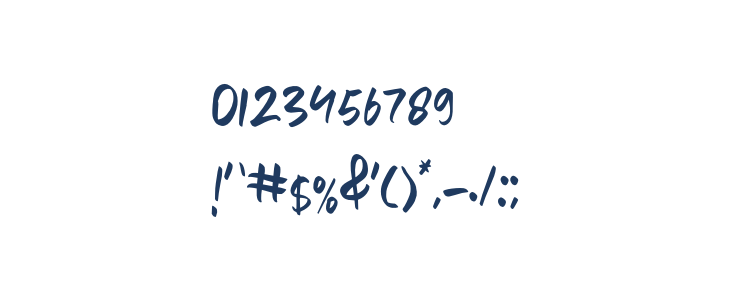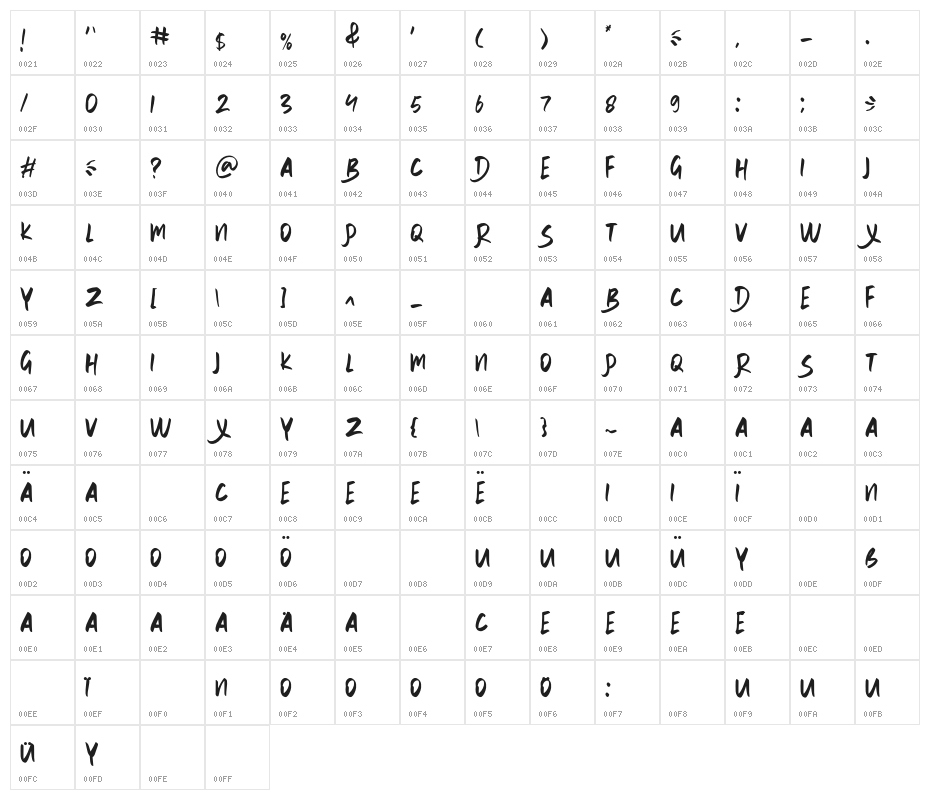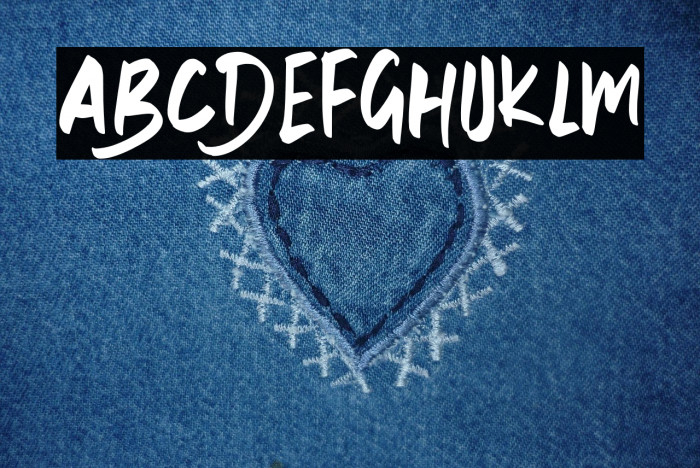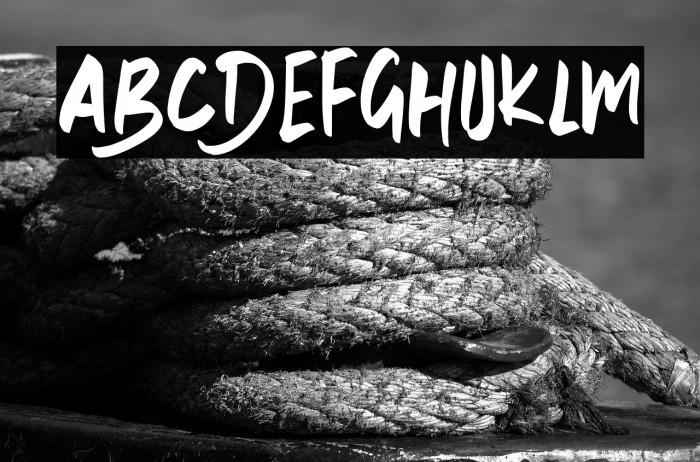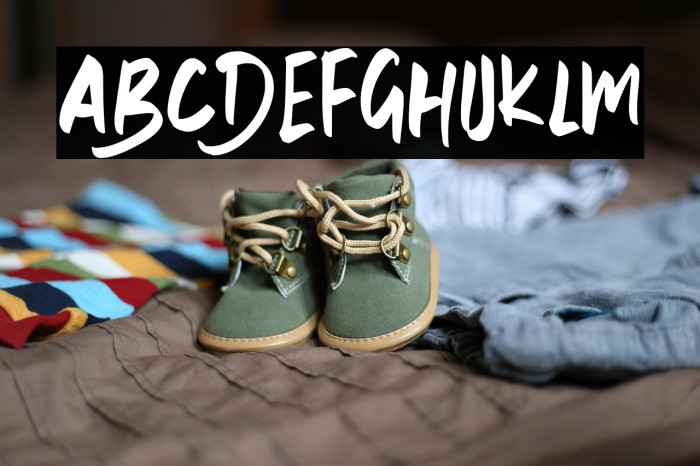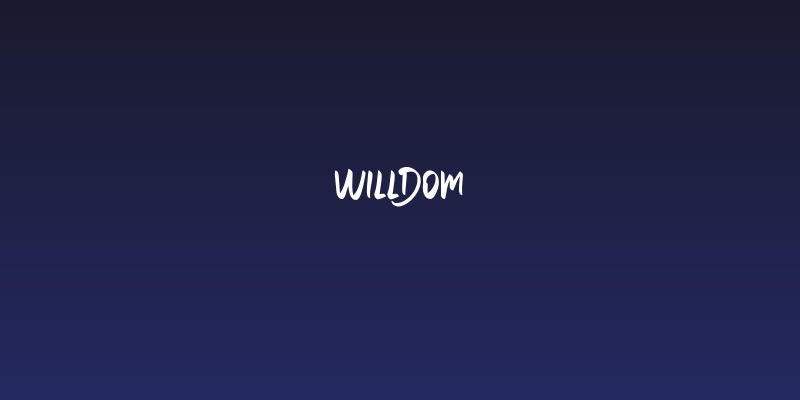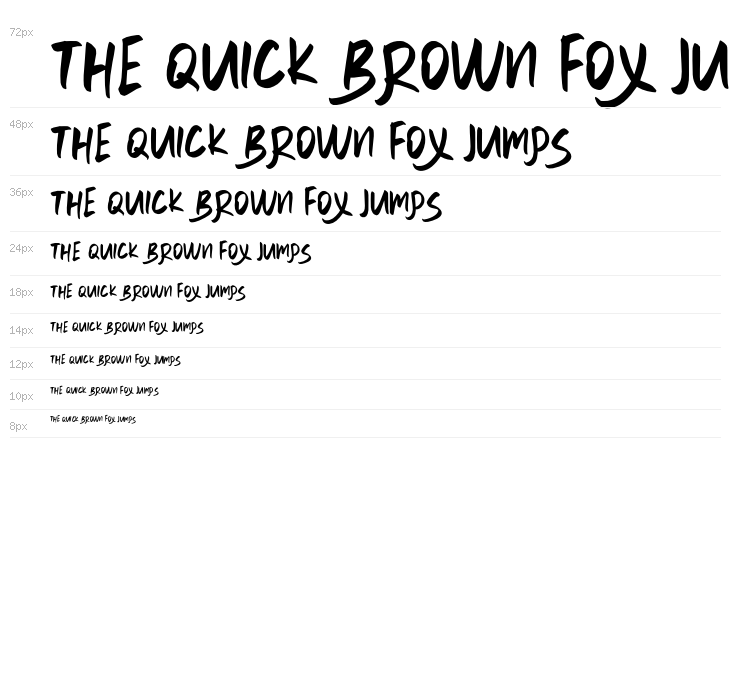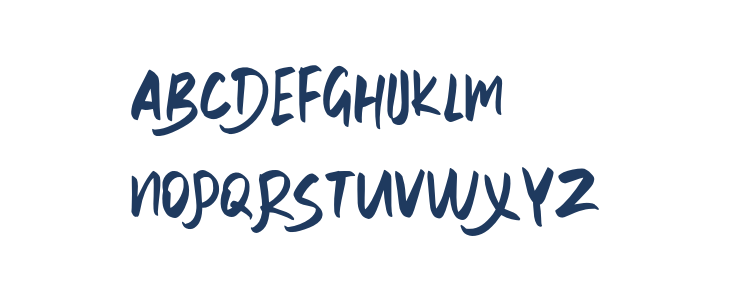
WILLDOM Font
WILLDOM Description
This font exudes a lively and energetic vibe with its bold, brush-like strokes. The characters are crafted with a sense of movement, giving them a dynamic and informal appearance. The uppercase and lowercase letters maintain a consistent style, with slightly exaggerated curves and angles that add to the playful nature of the font. The numbers and special characters are equally expressive, ensuring a cohesive look across all text elements. This font is perfect for projects that require a personal touch, such as invitations, posters, or branding materials that aim to convey creativity and spontaneity.
| Proposed Projects | Ideal for creative projects like invitations, posters, and branding materials. |